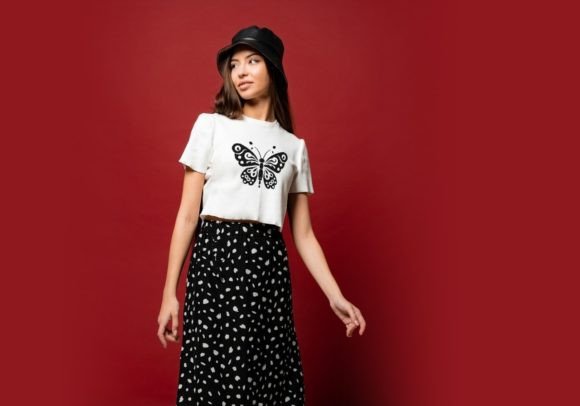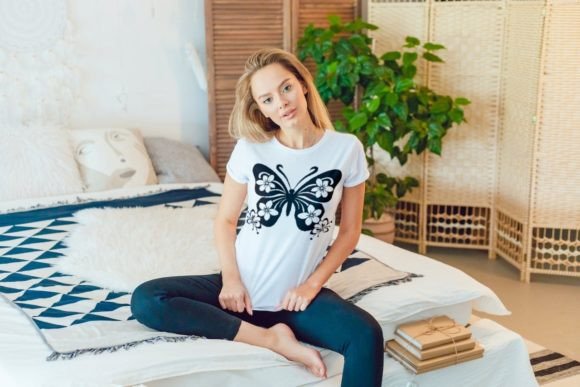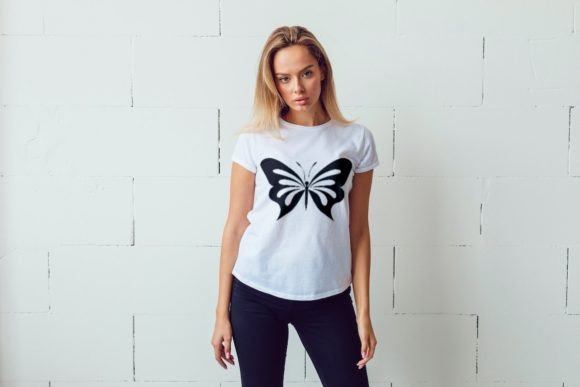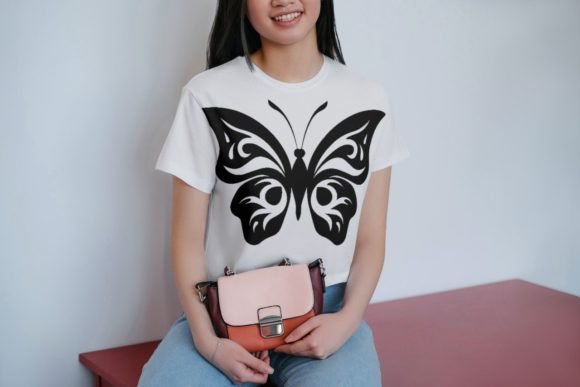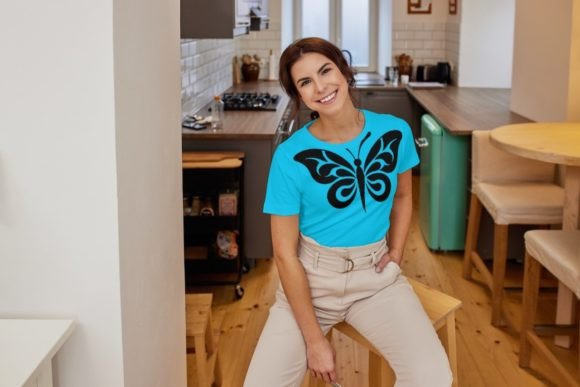
Introducing the Butterfly Joyful Dingbats Font Collection – Your Gateway to Creativity!
Imagine yourself in a serene garden, surrounded by the gentle flutter of butterflies. This peaceful scene inspired the creation of the Butterfly Joyful Dingbats Font Collection, a versatile and enchanting font designed to add a touch of whimsy and elegance to your designs.
A Design Moment of Frustration and Delight
I recall working on a project where I needed to create a custom invitation for a garden party. I wanted to add a delicate, hand-drawn feel to the design, but was struggling to find the right font. That’s when I discovered the Butterfly Joyful Dingbats Font Collection. The intricate details and beautiful illustrations of butterflies instantly captured my attention, and I knew I had found the perfect fit for my project.
Here’s what I love about the Butterfly Joyful Dingbats Font Collection:
• ✨ Exquisite variety of butterfly illustrations, perfect for adding a touch of elegance to your designs
• ✅ Easy to use and navigate, even for those new to dingbats fonts
• 🎨 Highly versatile, suitable for a wide range of creative projects, from invitations to digital art
• 💕 Beautifully crafted, with intricate details that add a touch of whimsy to your designs
And, like any font, it’s not without its quirks:
• 🤔 Some of the illustrations may be a bit too intricate for very small font sizes
• ⚠️ Limited character set, as it’s a dingbats font, but this also makes it easier to use and navigate
The Designer Inspiration Behind Butterfly Joyful
The Butterfly Joyful Dingbats Font Collection was inspired by the beauty and wonder of butterflies. The designer, a nature lover and avid gardener, wanted to capture the essence of these delicate creatures in a font that would bring joy and elegance to creative projects. The result is a stunning collection of illustrations that are sure to delight designers and crafters alike.
What type of projects is the Butterfly Joyful Dingbats Font Collection suitable for? The Butterfly Joyful Dingbats Font Collection is versatile and can be used for a wide range of creative projects, from invitations and greeting cards to digital art and craft projects.
Is the Butterfly Joyful Dingbats Font Collection easy to use? Yes, the Butterfly Joyful Dingbats Font Collection is designed to be easy to use, even for those new to dingbats fonts. The font is well-organized, and the illustrations are simple to navigate.